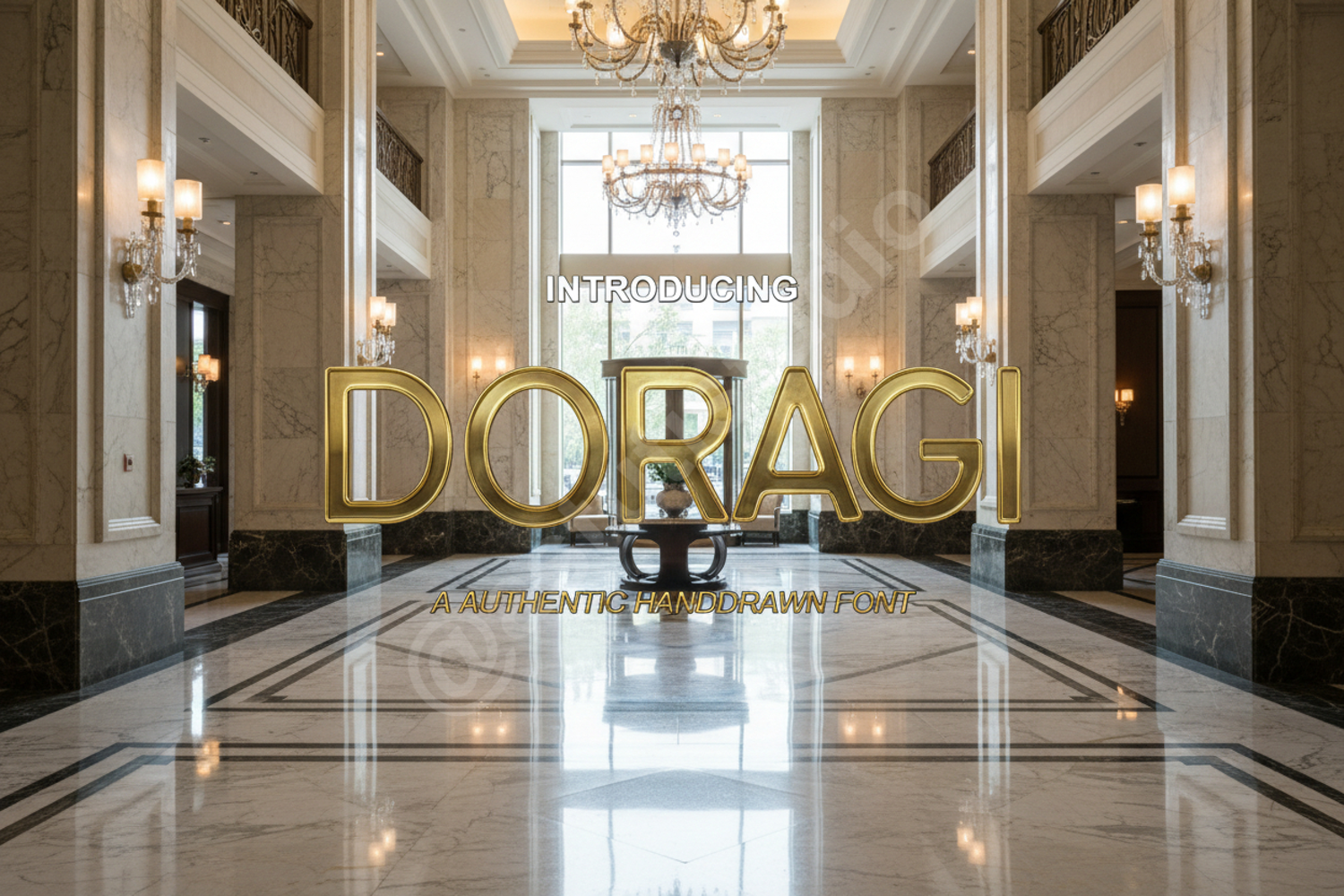
Doragi - Elegant Modern Serif Display Font
Doragi
Elevate your creative projects with Doragi, a premium serif typeface that seamlessly blends classic sophistication with modern design principles. Meticulously crafted for clarity and high-end appeal, Doragi offers a timeless aesthetic that ensures your work stands out with professional polish. Whether you are working on a luxury fashion brand or a minimalist editorial layout, this font provides the versatility and grace needed to achieve a superior visual impact.
- Luxury Branding and Identity: Create memorable logos and brand marks that exude high-end elegance.
- Wedding Stationery: Design sophisticated invitations, save-the-dates, and elegant place cards.
- Editorial Design: Perfect for magazine headings, book covers, and high-impact layout designs.
- Social Media Graphics: Craft eye-catching quotes and promotional graphics for premium digital content.
- Product Packaging: Add a touch of class to product labels, boxes, and high-end retail packaging.